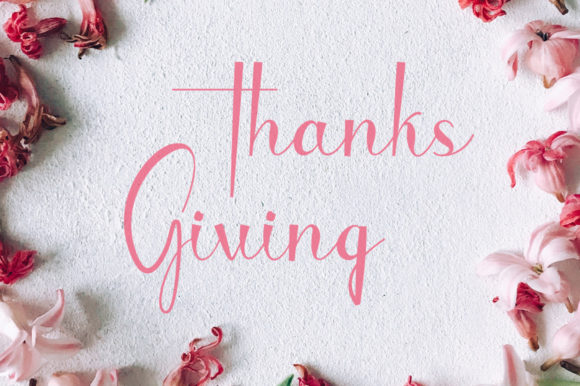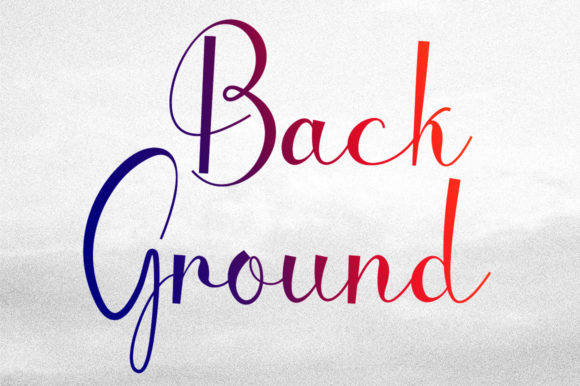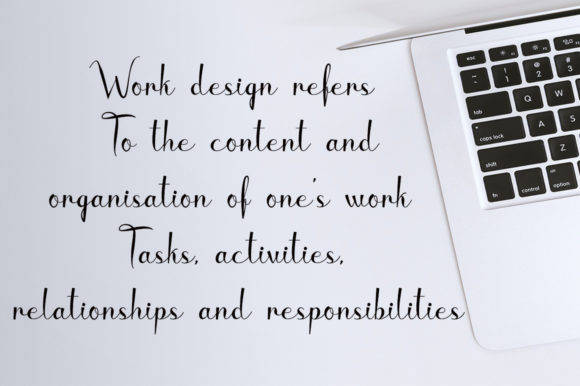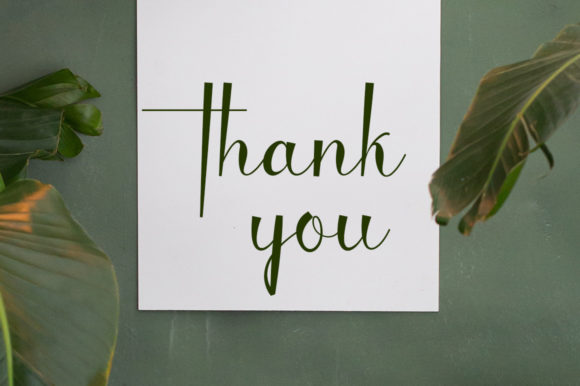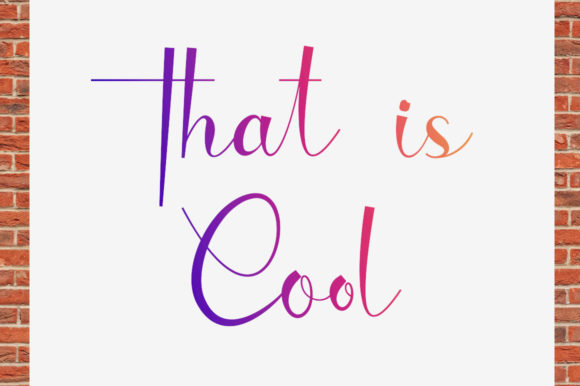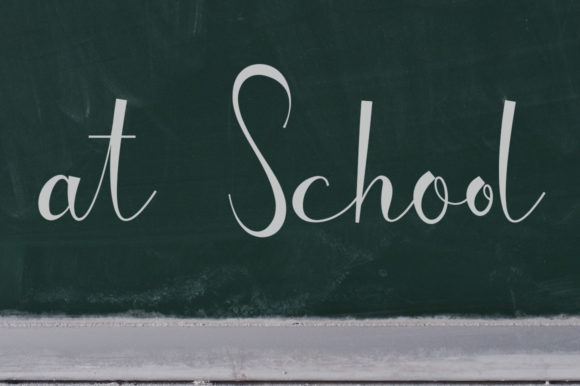
Hello Too Font
Hello Too – a fun and entertaining handwritten font that that embodies charm and authenticity in every character. Use this lovely typeface to complement your most creative projects!